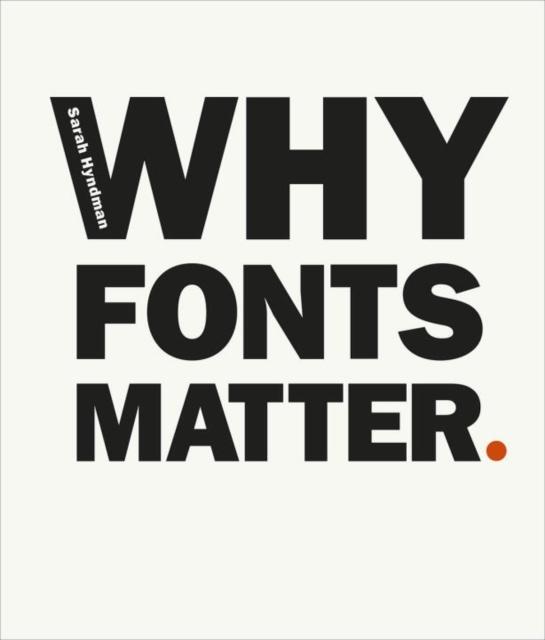
Discover the incredible power of fonts - how they influence your decisions, alter your perceptions, stir your emotions and change how you understand the world. Graphic designer Sarah Hyndman shares her infectious enthusiasm for fonts in this visually inspiring, beautifully designed, immersive and interactive study, including quizzes, tests and case-studies.
This book opens up the science and the art behind how fonts influence you. It explains why certain fonts or styles evoke particular experiences and associations. Fonts have different personalities that can create trust, mistrust, give you confidence, make things seem easier to do or make a product taste better. They're hidden in plain sight, they trigger memories, associations and multisensory experiences in your imagination.
* Fonts can alter the meanings of words right before your very eyes. * See what personalities fonts have, and what they reveal about YOUR personality. * Explore how you respond to fonts emotionally and can make fonts work for your message. * Be amazed that a font has the power to alter the taste of your food.
This book is a must-read for anyone interested in typography and graphic design professionally but also a fascinating insight for anyone interested in giving words impact or anyone wanting to know more about how type can be used to influence us.